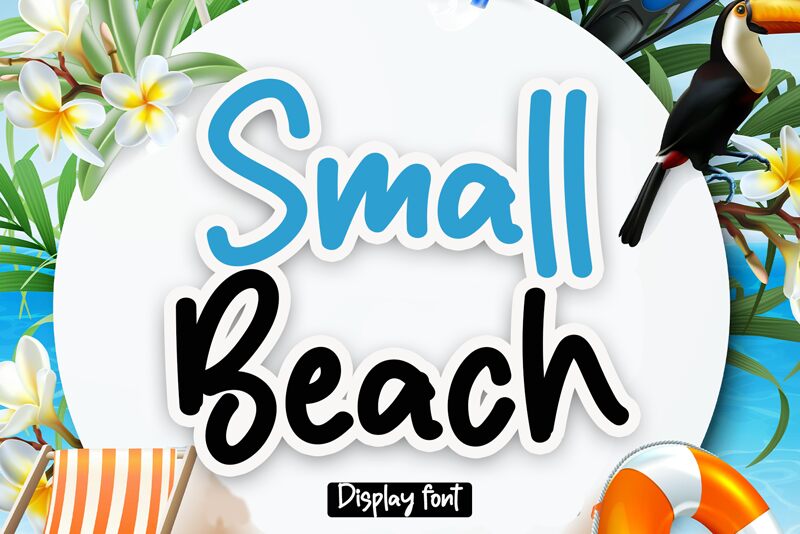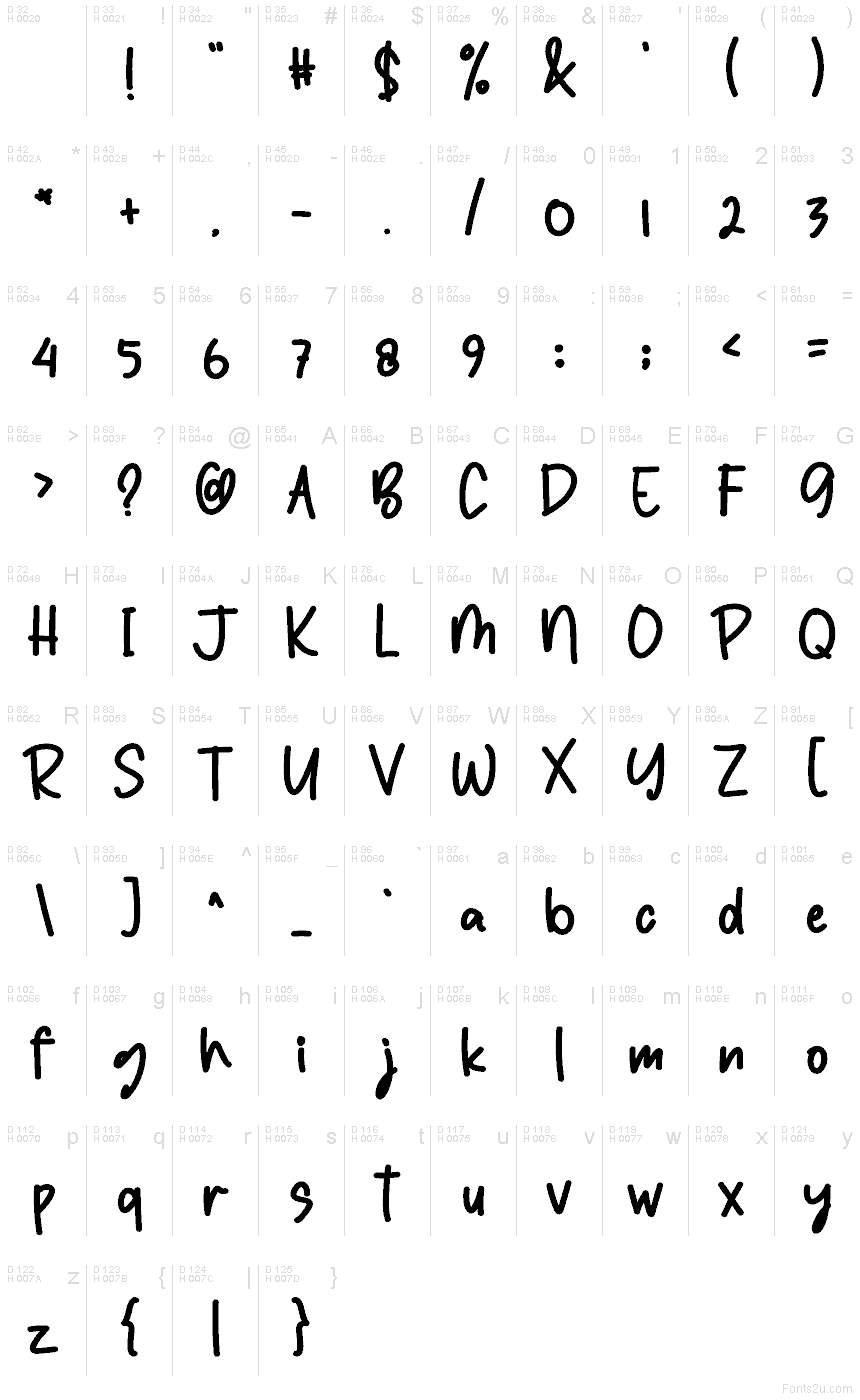
Small Beach
Small Beach font by creatype designer is a free handwritten script typeface with an easygoing, ink-brush energy. The letters feel like they were painted in one smooth motion—rounded, bold, and a little bouncy—giving every word a sun-warmed, friendly vibe. It has enough weight to stand out on its own, yet the casual rhythm keeps it from feeling stiff or overdesigned.
Using Small Beach, this free font shines on beachwear logos, summer event posters, travel blogs, quote graphics, and handmade product packaging. The dense, inky strokes read clearly at medium to large sizes, making it a natural fit for headlines and short phrases. Pair it with a clean sans serif for body text to balance its playful texture, and you’ve got a relaxed, cohesive look across social media, postcards, and branding.
This font retains a classy calligraphic influence while feeling contemporary and fresh. This versatility will attract a wide range of creative ideas, from letterheads and titles to stationery.